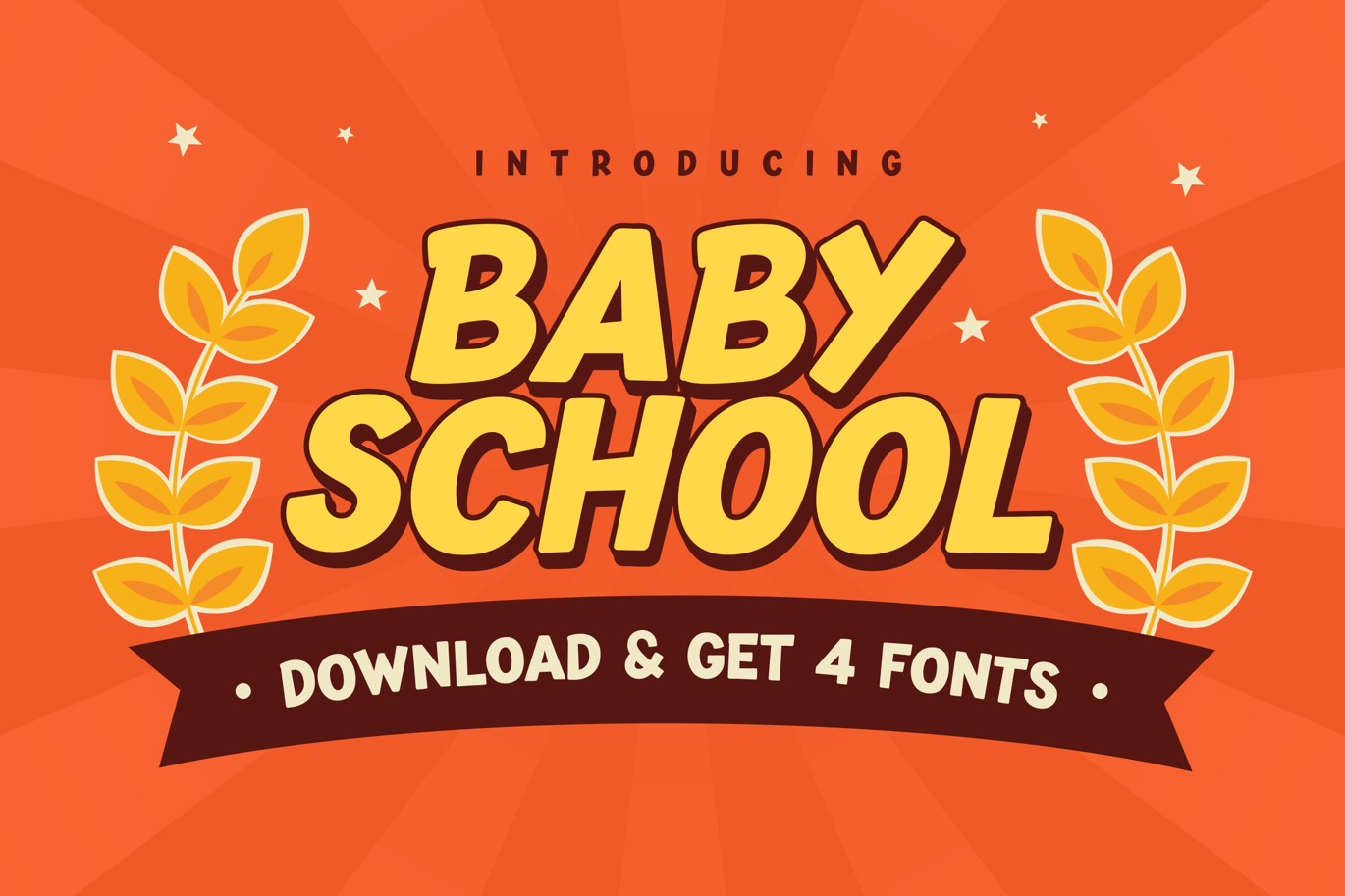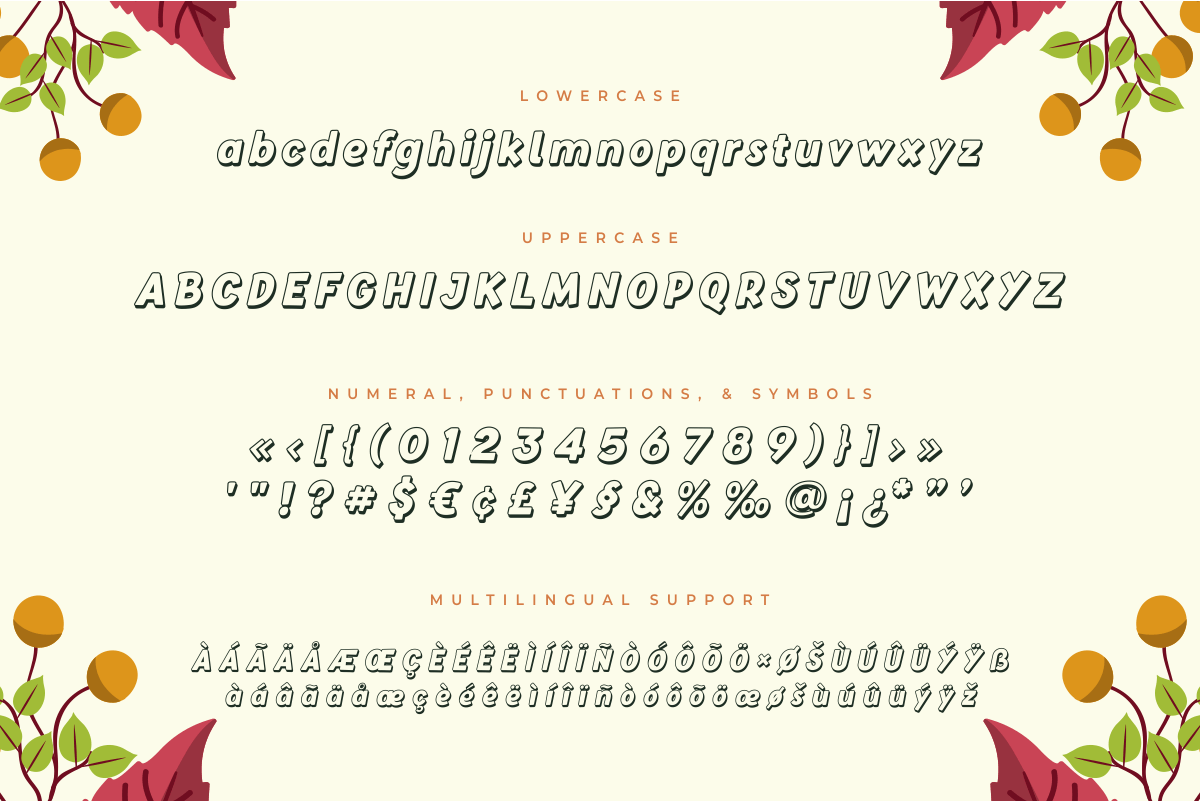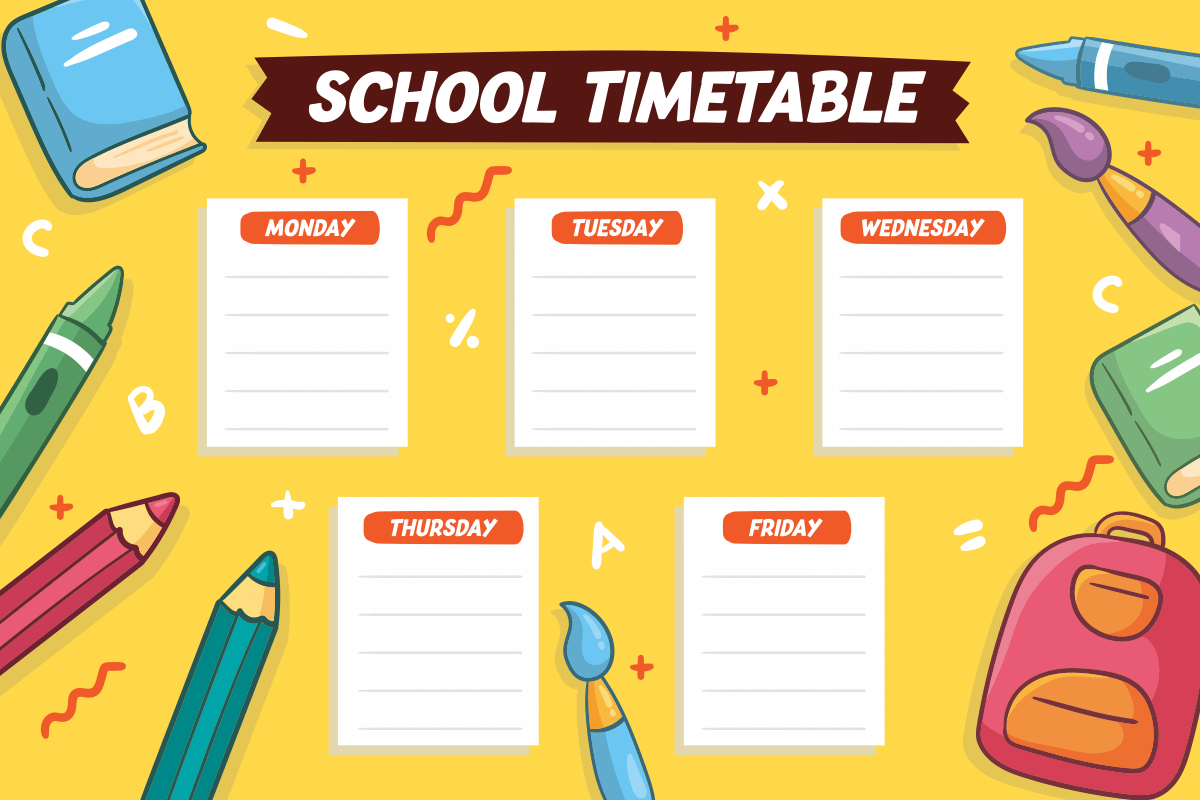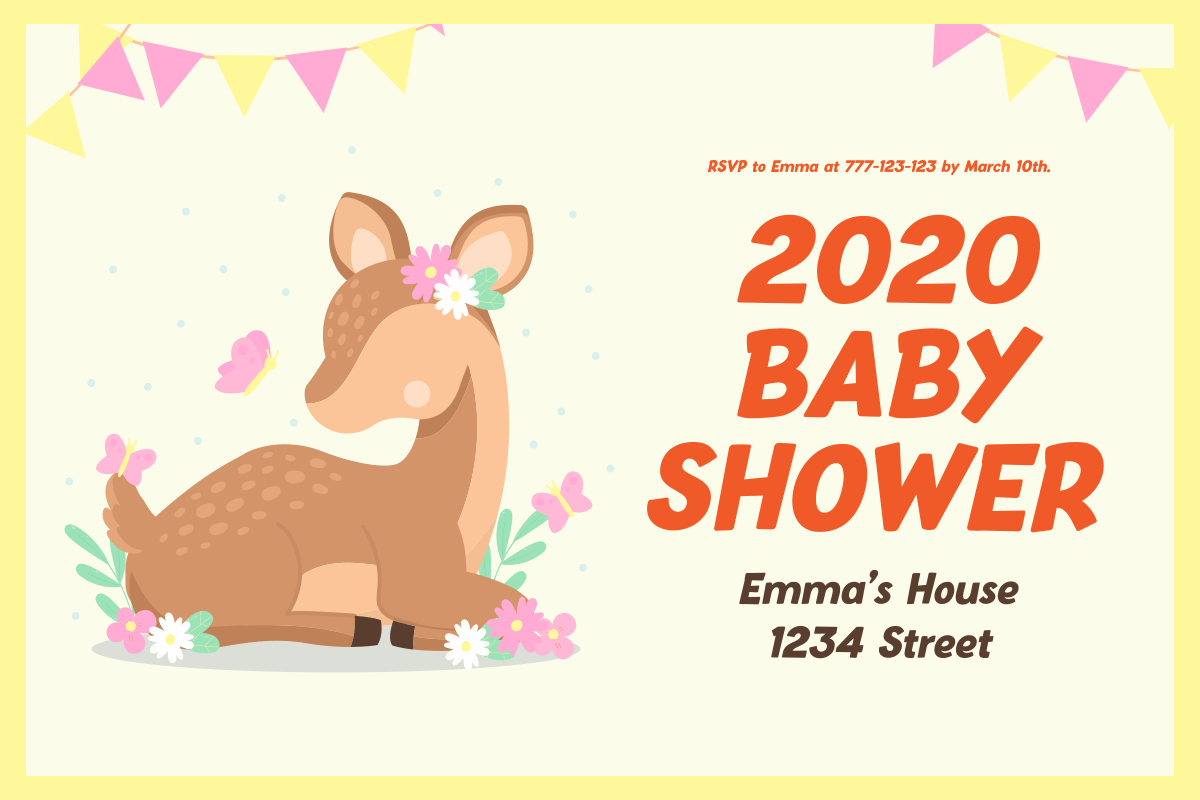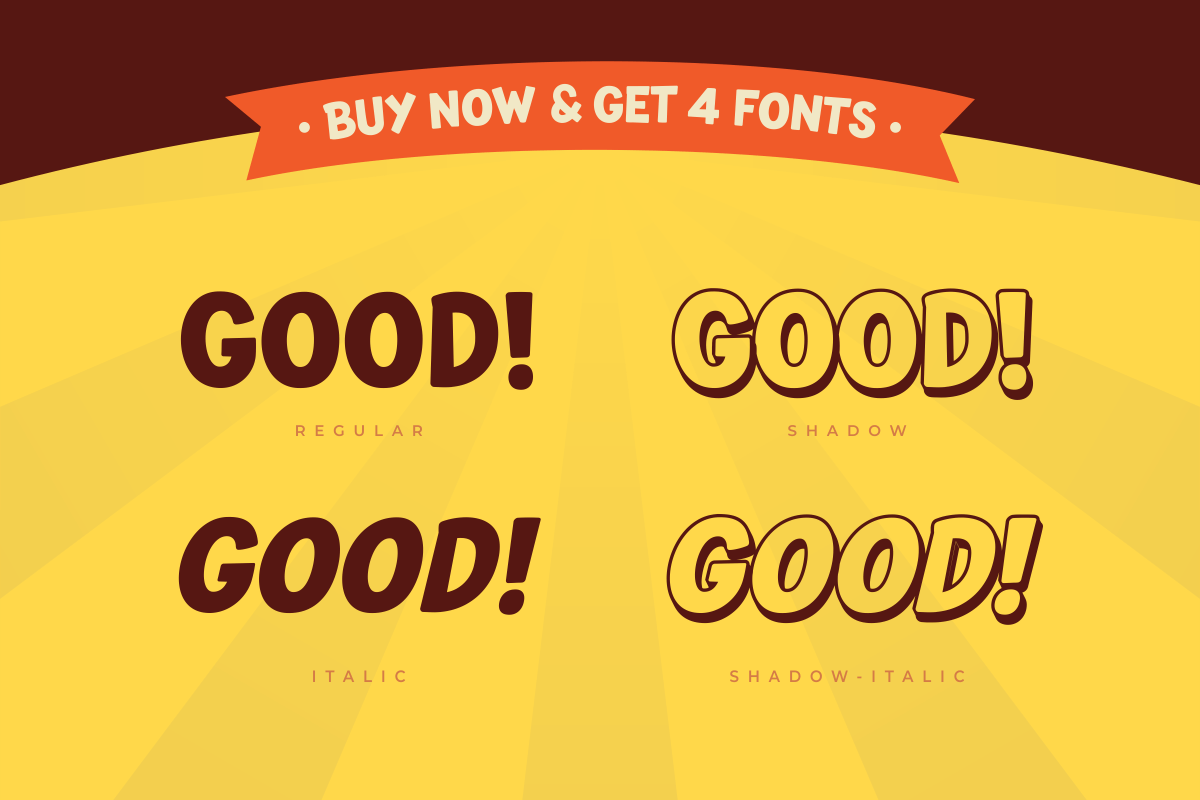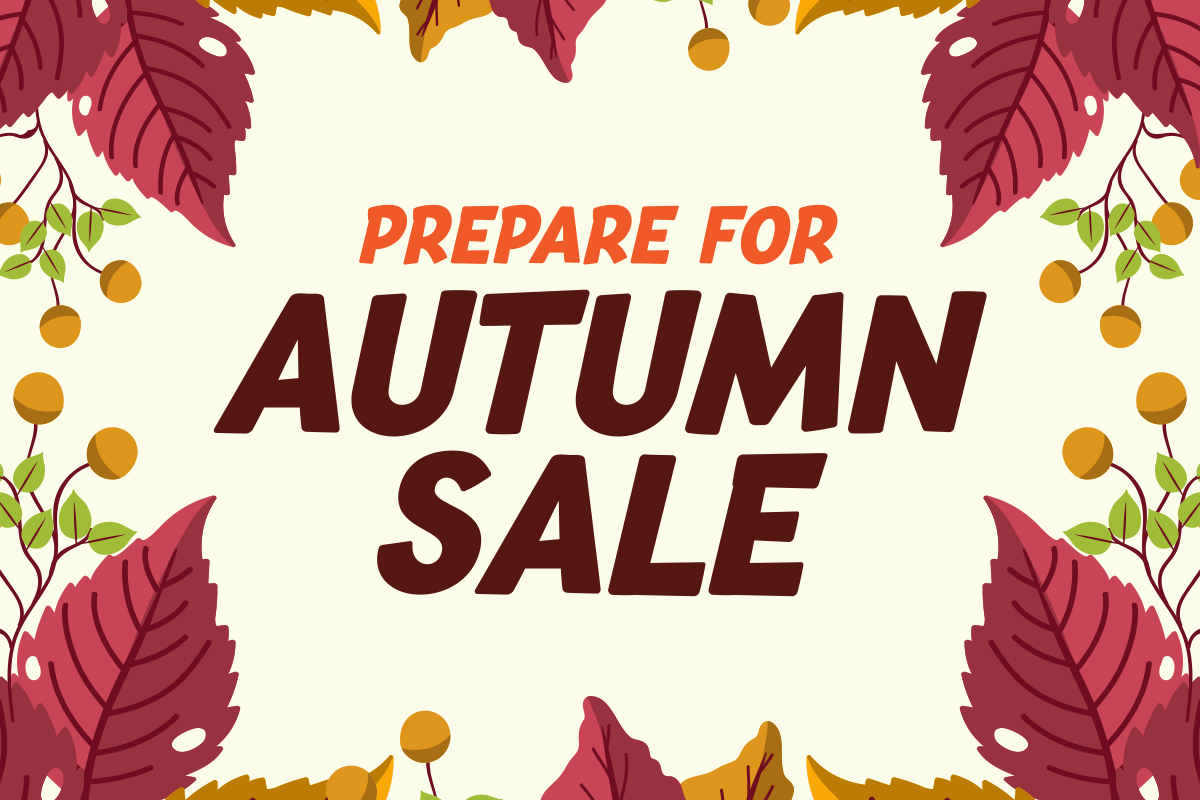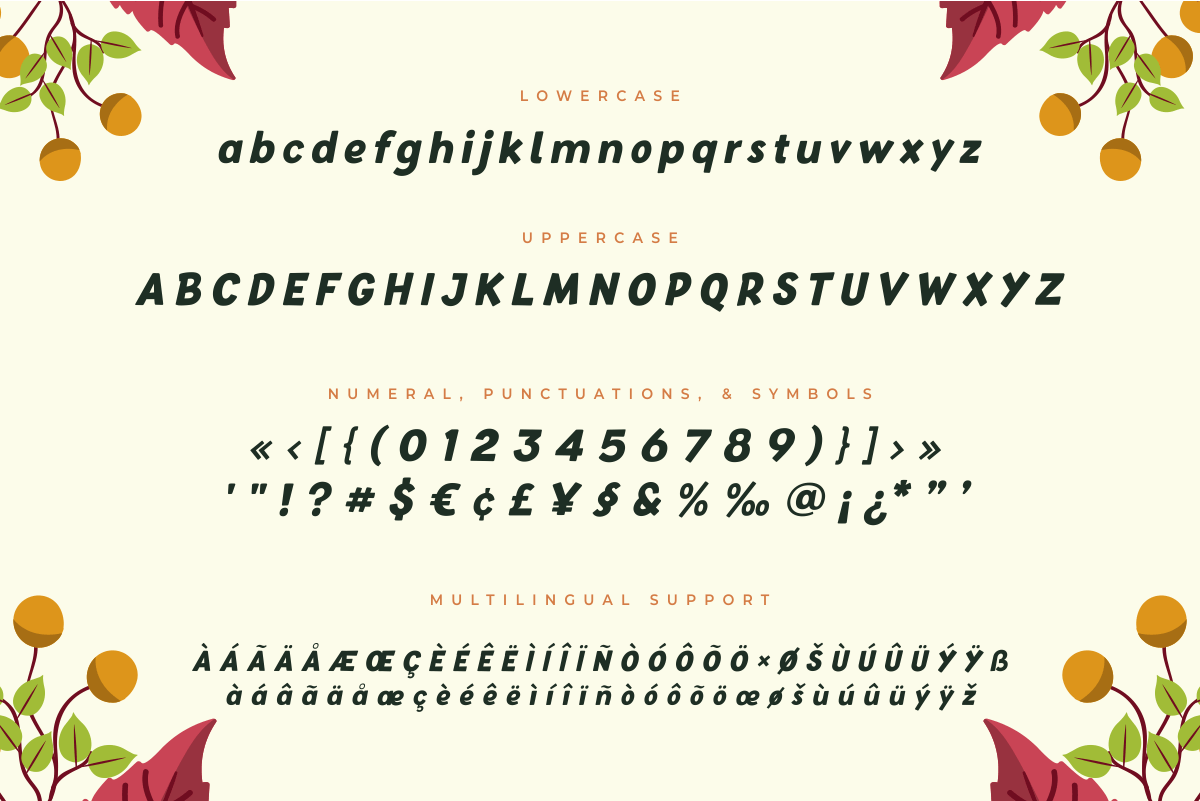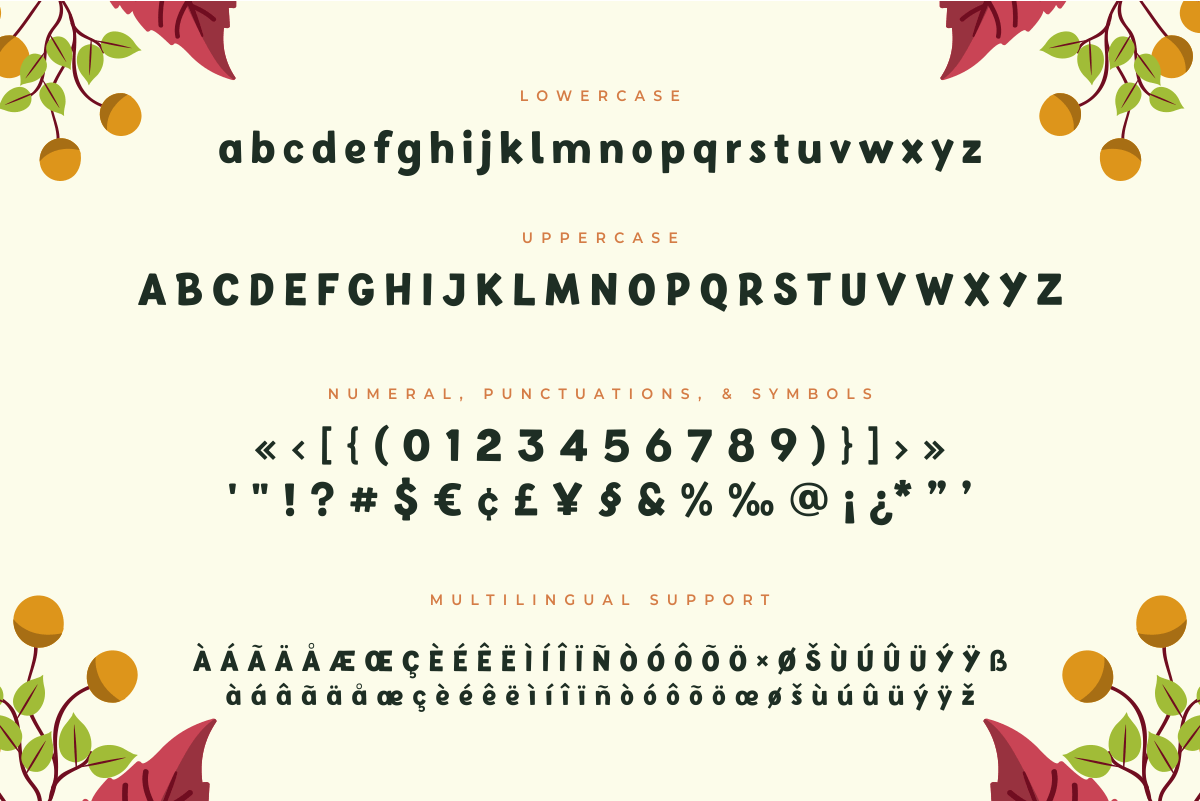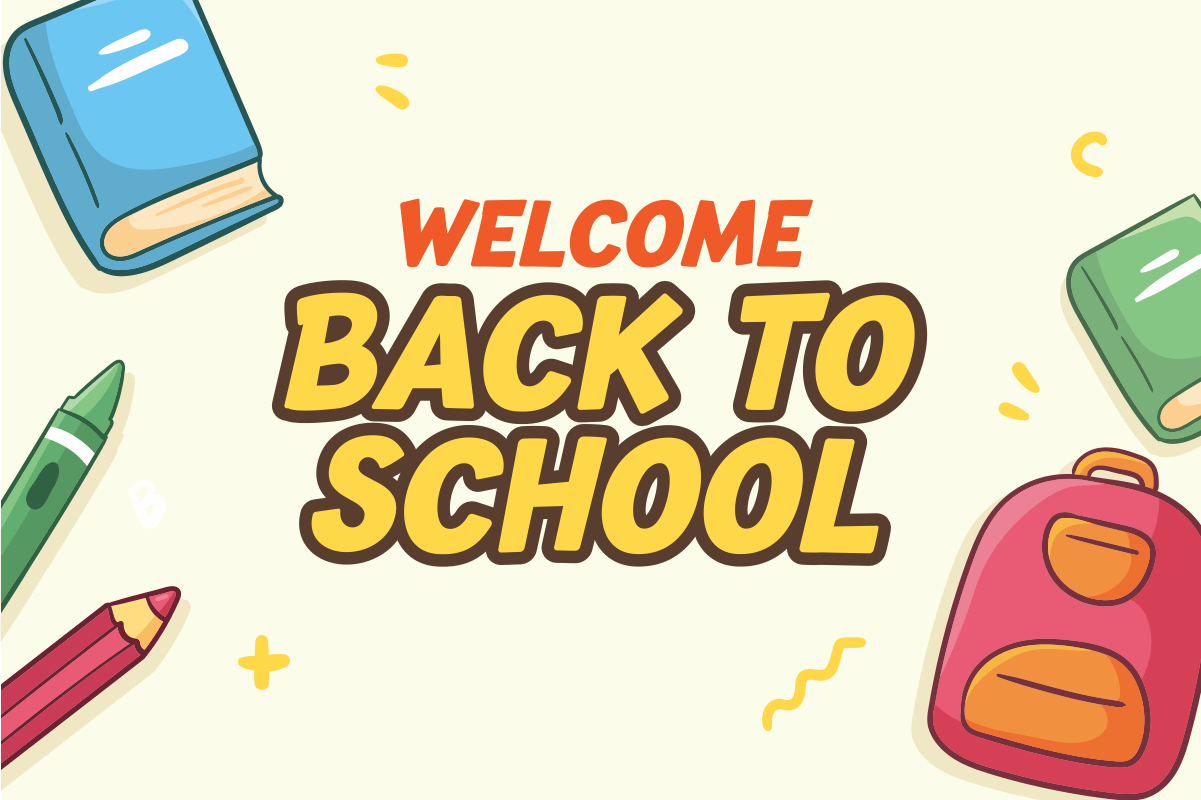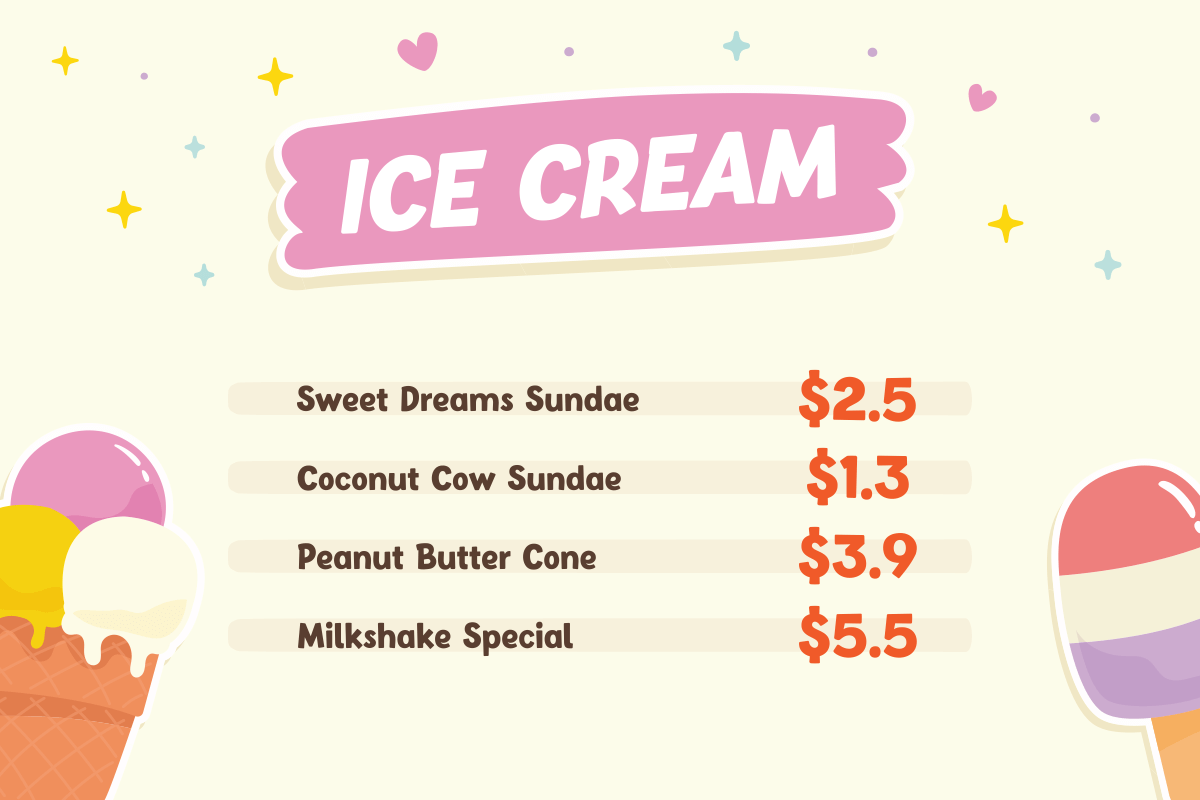
Baby School – Kids Fun Font
Do you want to find a good font for Branding, Mobile Apps, Flyer, Magazine, Greeting cards, Comic, etc? Baby School font is the best choice.
Baby School font is Our Fun Kids Font and Display, are designed for Titles, Headline, Subtitles and many more you want. It has ready with 4 style of fonts and his own unique style with rounded in each corner. Baby School font is an type family ideal for display, game title, text, print, branding, signage, and and also for user interfaces, mobile devices, especially web design creation, with a set of optimal characters for your design in any layout.